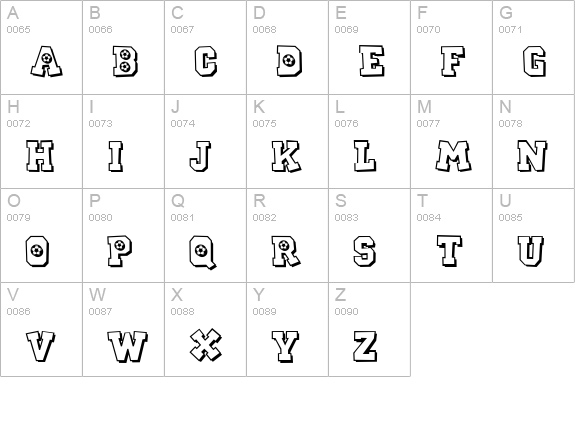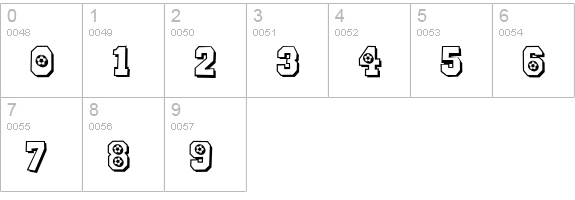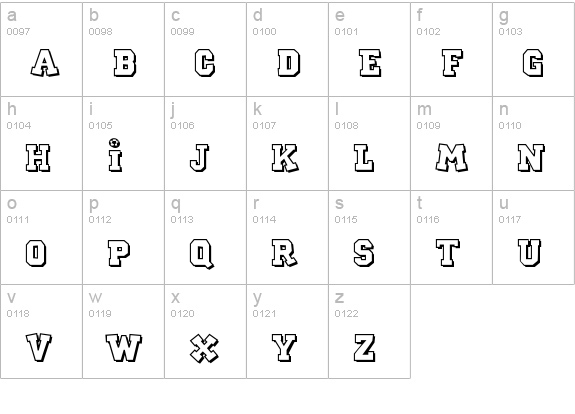
CK Sports Soccer Font Details
Introducing CK Sports Soccer font, a dynamic and energetic typeface perfect for all your sports-related designs! This bold and modern font captures the essence of soccer with its sleek lines and strong presence. Whether you're designing posters, banners, or jerseys, CK Sports Soccer font is sure to make a statement. What's even better is that CK Sports Soccer font is available for free download at FontsMarket.com! Now you can easily add a touch of athleticism to your projects without breaking the bank. Don't miss out on this fantastic opportunity to elevate your designs with CK Sports Soccer font - download it today and score big with your audience!